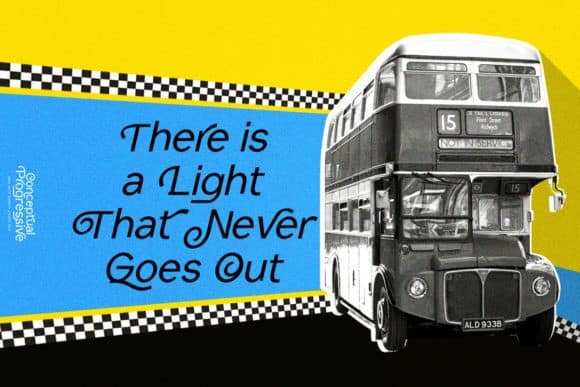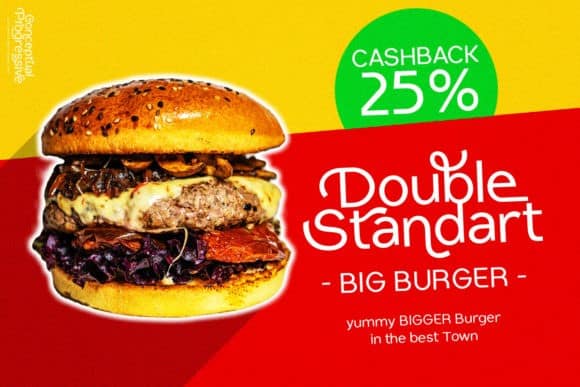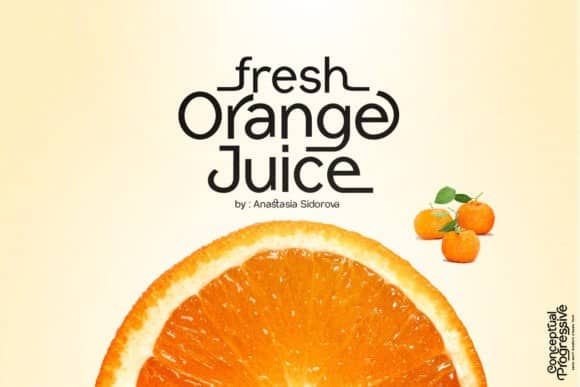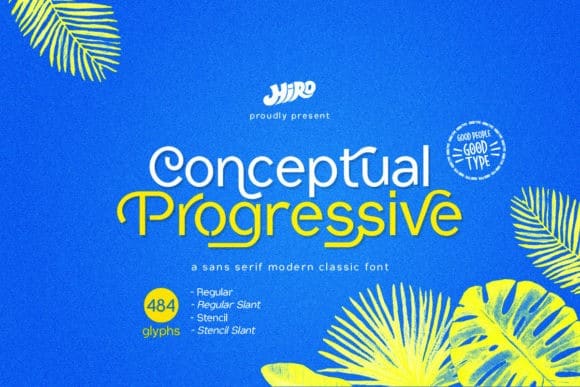
Conceptual Progressive Sans Serif Font is a fairytale-style font that’s perfect for making quotes and for past and present fairy tales. Of course for display products that you want to display in full color. Made from font designer named HIRO.std. It’s a minimal, yet elegant sans serif font. Suitable to a wide variety of designs due to its neat and simple style, this font has the potential to become your favorite go-to font, no matter the occasion!